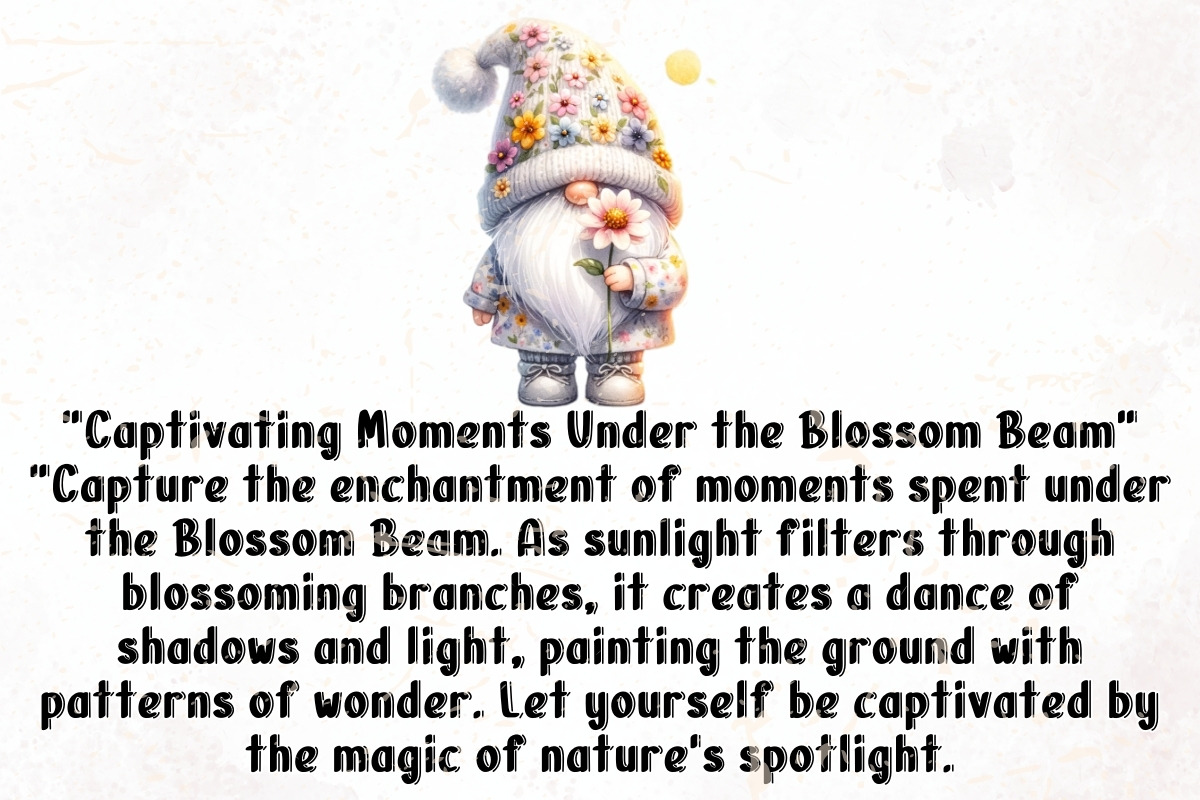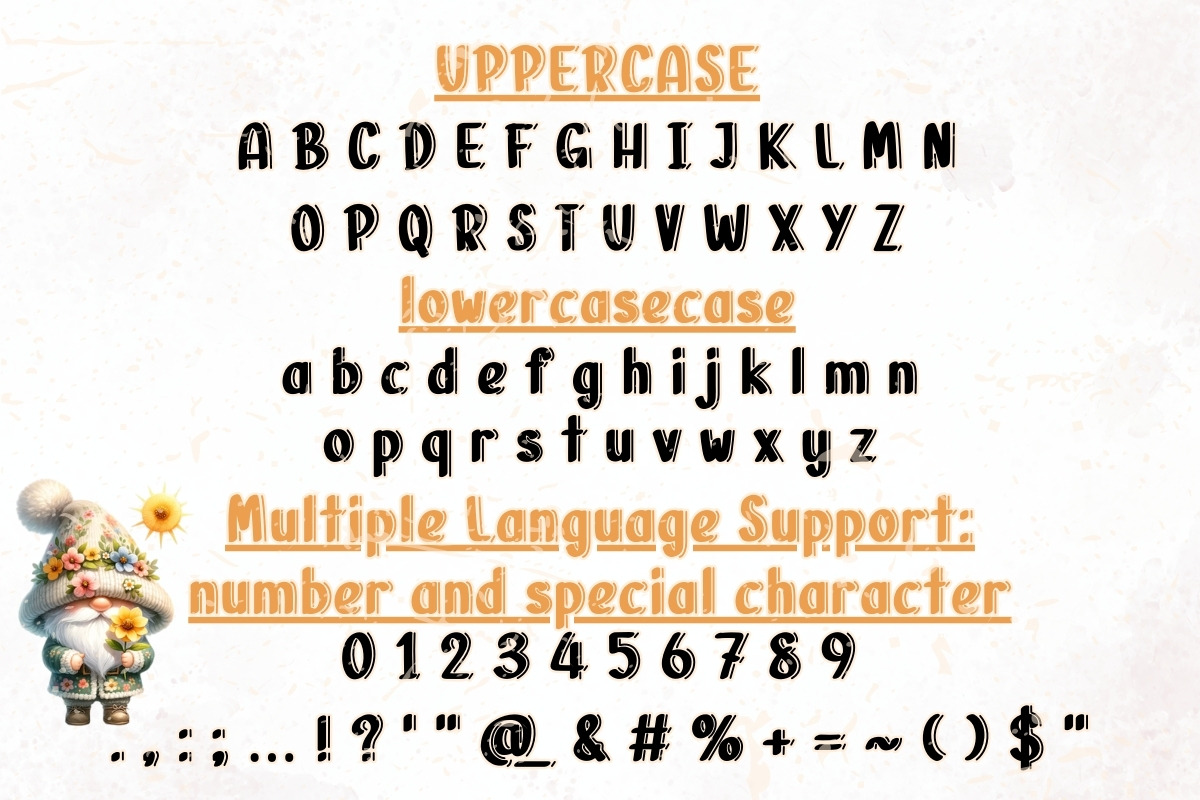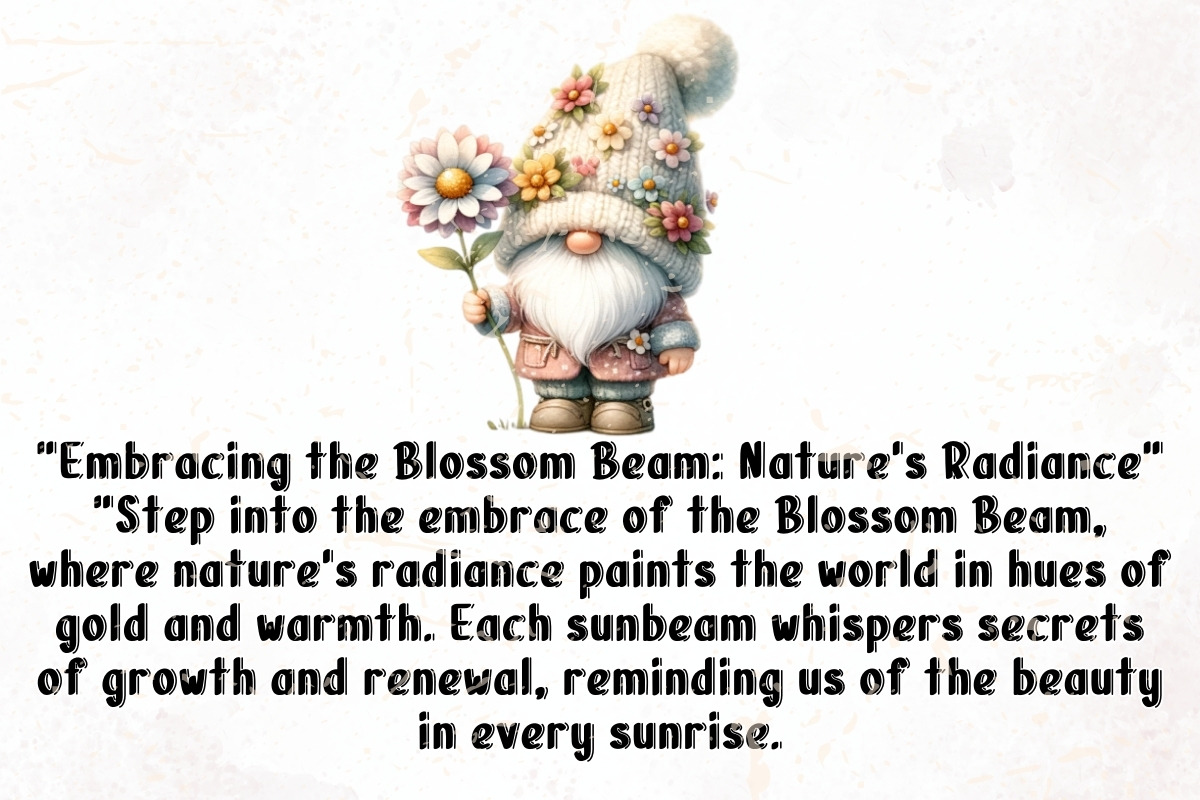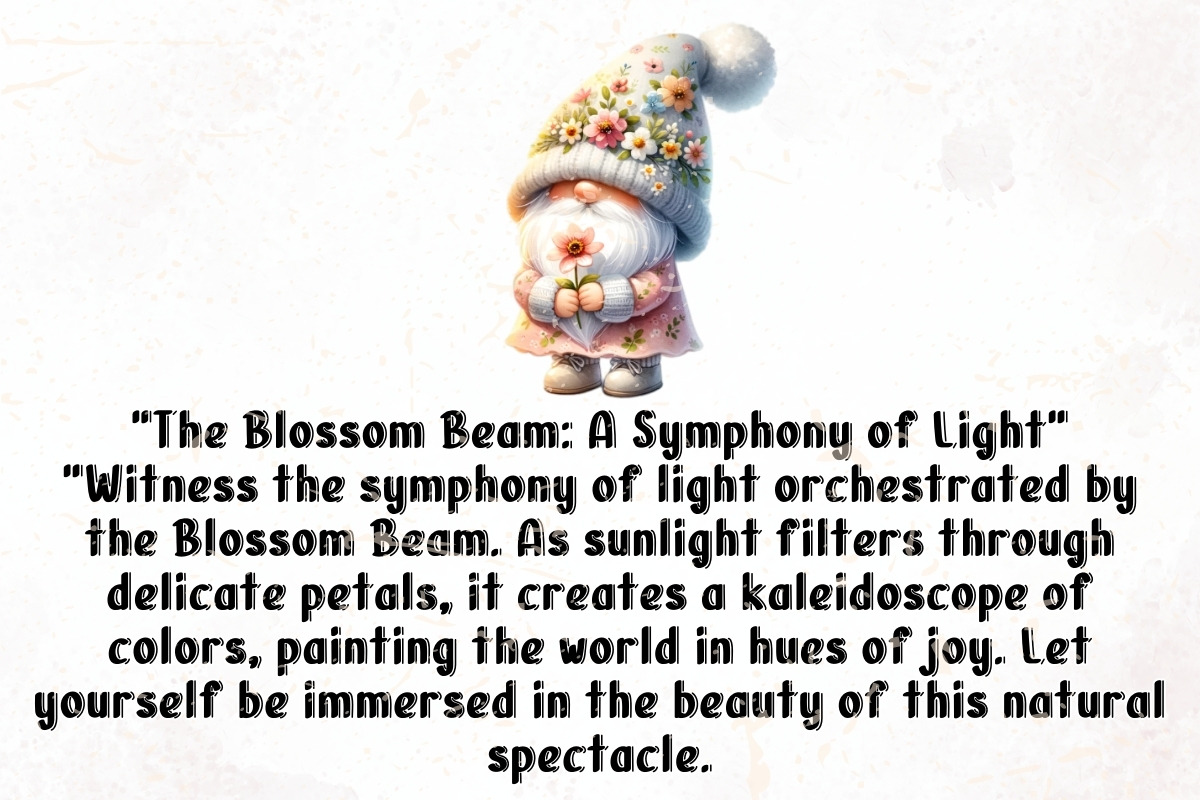
Blossom Beam - Handwritten
"Introducing Blossom Beam - a charming handwritten font that captures the essence of beauty and grace. With its delicate strokes and whimsical curves, Blossom Beam adds a touch of elegance to any project. Whether you're designing invitations, crafting greeting cards, or creating branding materials, this font brings a sense of warmth and personality to your work. Let Blossom Beam illuminate your designs with its radiant charm!"